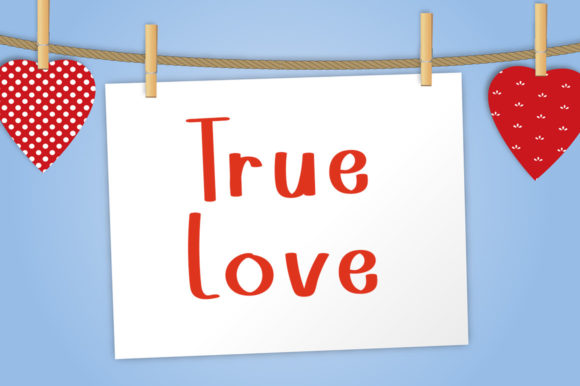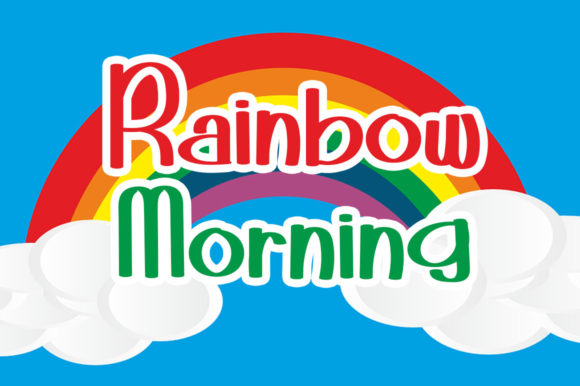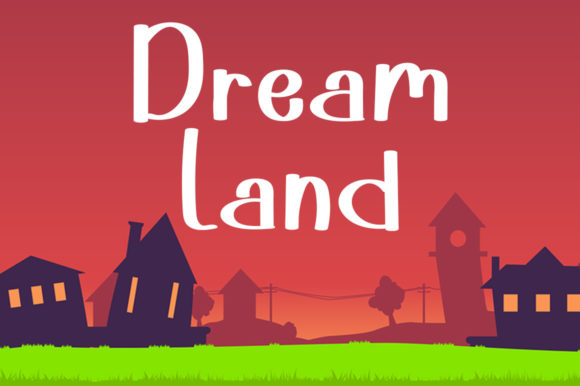
Introducing Happy Amellia Font: The Perfect Addition to Your Font Library
Are you a designer or crafter looking for a font that can add a touch of personality to your creations? Look no further than Happy Amellia Font! This simple and cute handwritten font is perfect for a wide range of projects, from invitations and greeting cards to branding and packaging.
A Versatile Font for Any Project
One of the best things about Happy Amellia Font is its versatility. No matter the topic or theme of your project, this font is sure to be a great fit. Its friendly and approachable vibe makes it perfect for designs that need to convey a sense of warmth and approachability.
Whether you’re working on a project for a client or creating something for your own brand, Happy Amellia Font is a great choice. Its simplicity and elegance make it easy to read and understand, while its playful and whimsical feel adds a touch of personality to any design.
Why Happy Amellia Font is a Great Addition to Your Font Library
So why should you add Happy Amellia Font to your font library? Here are just a few reasons:
- Easy to read: Happy Amellia Font is clear and easy to read, making it perfect for body text and headlines.
- Versatile: This font works well with a wide range of design styles and themes, from modern and sleek to vintage and distressed.
- Playful: Happy Amellia Font has a playful and whimsical feel that adds a touch of personality to any design.
- High-quality: This font is professionally designed and crafted to ensure high-quality and consistency.
How to Use Happy Amellia Font in Your Designs
Using Happy Amellia Font in your designs is easy! Here are a few tips to get you started:
- Pair it with other fonts: Happy Amellia Font pairs well with a wide range of other fonts, from sans-serif fonts like Arial and Helvetica to script fonts like Pacifico and Great Vibes.
- Use it for headlines and body text: This font works well for both headlines and body text, making it a great choice for designs that need a clear and easy-to-read font.
- Experiment with colors and textures: Happy Amellia Font looks great in a wide range of colors and textures, from bold and bright to soft and pastel.
What Kind of Projects is Happy Amellia Font Suitable For?
Happy Amellia Font is suitable for a wide range of projects, including:
- Invitations and greeting cards: This font is perfect for creating invitations and greeting cards that need a personal and touch.
- Branding and packaging: Happy Amellia Font is a great choice for branding and packaging designs that need a friendly and approachable vibe.
- Social media graphics: This font works well for social media graphics, including Facebook posts, Instagram stories, and Twitter headers.
- Blog and website design: Happy Amellia Font is a great choice for blog and website designs that need a clear and easy-to-read font.
| Font Name | Happy Amellia Font |
| Author | Mr.Soon Design |
In conclusion, Happy Amellia Font is a simple and cute handwritten font that is perfect for a wide range of design projects. Its versatility, readability, and playful feel make it a great addition to any font library. Whether you’re a designer or crafter, Happy Amellia Font is sure to be a valuable asset for any project.